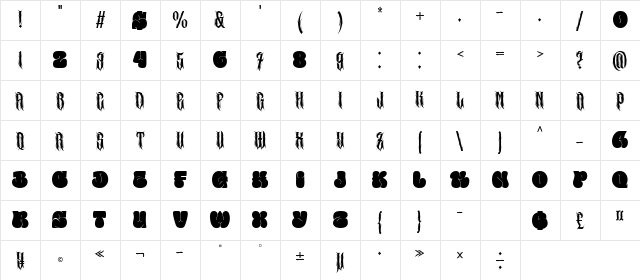
Bubble Core Regular Free Font
Bubble Core Regular
Foundry: Alit Design
Designer: Kana Widana
Design Context for Bubble Core
Bubble Core has an approachable, lighthearted character - its loose, expressive forms are well-suited to children's content, casual branding, and fun-first design.
Font Pairing: Pairs well with a rounded or humanist sans for body copy, maintaining the friendly tone without relying on Bubble Core to carry extended reading.
Pro Tip: Use Bubble Core at larger display sizes where its expressive character can land. Pair with a clean, simple sans for body copy to maintain readability.